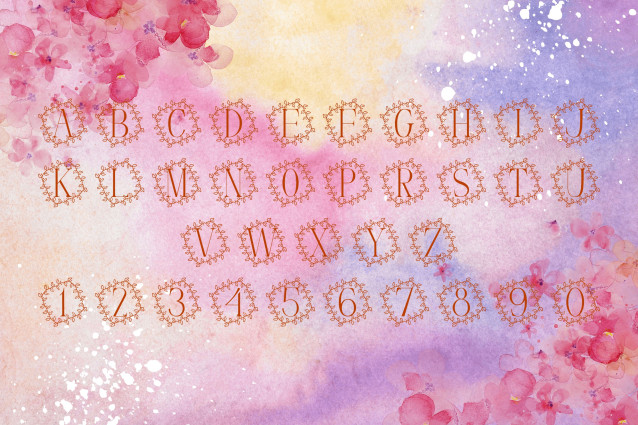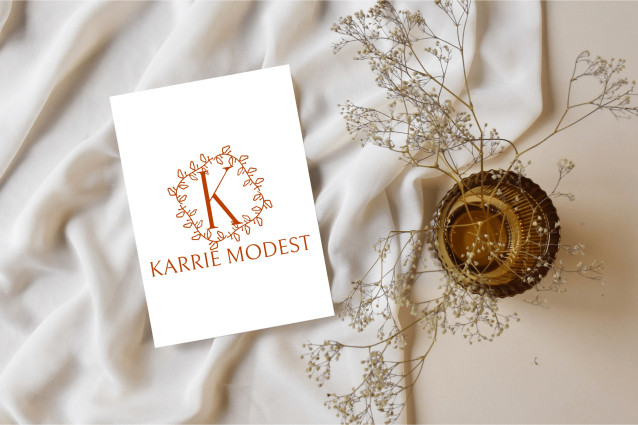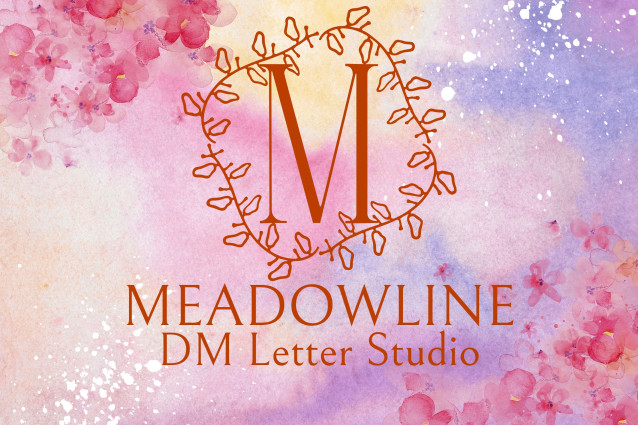
MeadowLine Monogram Font
MeadowLine Monogram Font is a refined serif monogram font featuring elegant line-art floral accents inspired by open meadows and wild blooms. Each uppercase letter is paired with soft, minimalist botanical illustrations, making this typeface ideal for custom initials, wedding crests, feminine branding, and artistic stationery. Its airy, graceful design creates a sense of quiet beauty and natural sophistication.